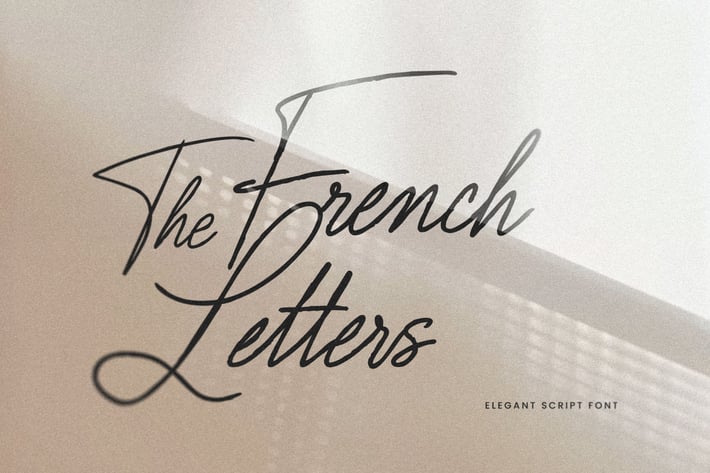
The French Letters Elegant Cursive Script Font
Say bonjour to The French Letters - a sophisticated script font that embodies Parisian charm.
It comes with over 100 ligatures that automatically connect letters smoothly with a natural rhythm as you type. This allows you to recreate the feel of handwritten calligraphy without the hassle.
From invites and stationery to cosmetics and jewelry branding, The French Letters dresses up any project with its sensual style. Use it to add a feminine, sophisticated look to logos, displays, headers, prints, and any design wanting a hint of romance & luxury.
100+ Ligatures
Selection of alternative glyphs
_The font includes the following set of diacritics: àáâãäåæçèéêëìíîïñòóôõöøùúûüýÿāăćčēėěœšźżž